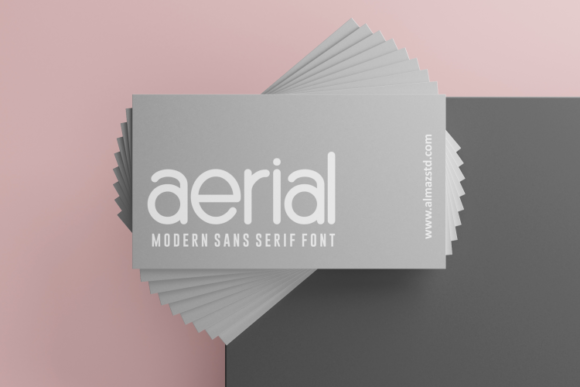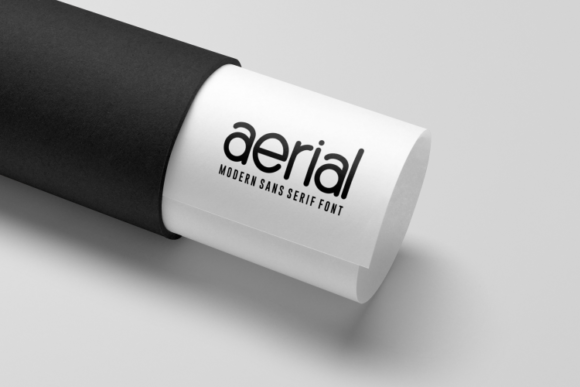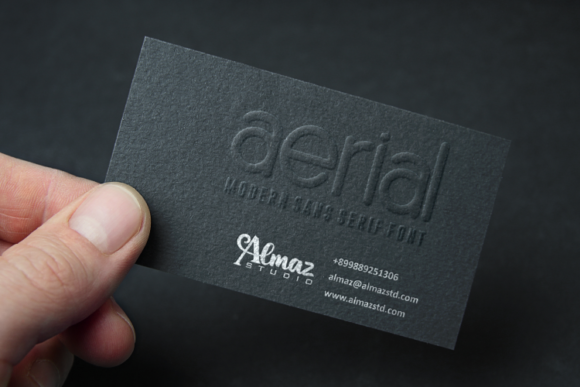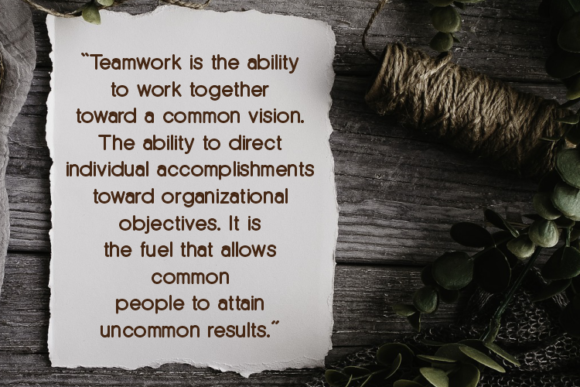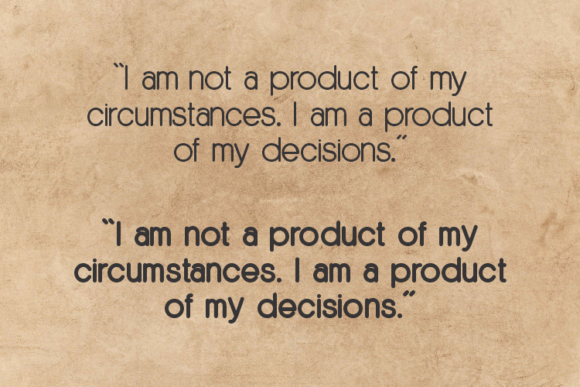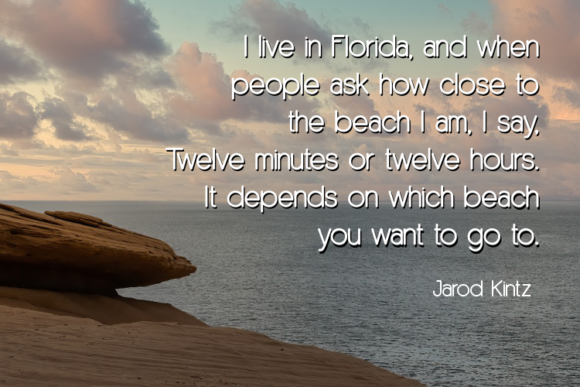
Aerial Font: Elevate Your Designs with a Clean and Modern Sans Serif
In the world of typography, a font can make or break a design. A well-chosen font can elevate your creation, adding a touch of sophistication and professionalism. Aerial Font is a clean and modern sans serif font that is sure to become an incredible asset to your font library. Whether you’re a designer, crafter, or simply someone who appreciates beautiful typography, Aerial Font is a must-have.
What is Aerial Font?
Aerial Font is a sans serif font that exudes a sense of cleanliness and modernity. Its sleek lines and minimalist design make it perfect for a wide range of applications, from digital designs to print materials. Aerial Font is a versatile font that can be used for various purposes, including branding, advertising, packaging, and more.
Key Features of Aerial Font
Aerial Font boasts several key features that make it an attractive addition to any font library. Some of its notable features include:
• Clean and Modern Design: Aerial Font’s sleek and minimalist design makes it perfect for modern designs.
• High Legibility: The font’s clear and concise lines ensure high legibility, even at small sizes.
• Versatility: Aerial Font can be used for a wide range of applications, from digital designs to print materials.
• Easy to Read: The font’s simple and uncluttered design makes it easy to read, even for extended periods.
Benefits of Using Aerial Font
Aerial Font offers several benefits to designers and crafters. Some of the advantages of using Aerial Font include:
• Enhanced Visual Appeal: Aerial Font’s clean and modern design adds a touch of sophistication to any design.
• Improved Legibility: The font’s high legibility ensures that your message is conveyed clearly and effectively.
• Flexibility: Aerial Font can be used for a wide range of applications, making it a versatile addition to your font library.
• Time-Saving: With Aerial Font, you can create professional-looking designs quickly and easily.
Who Can Benefit from Aerial Font?
Aerial Font is a versatile font that can be used by a wide range of professionals and individuals. Some of the people who can benefit from Aerial Font include:
• Graphic Designers: Aerial Font is a great addition to any graphic designer’s font library, offering a clean and modern sans serif option.
• Digital Designers: The font’s clean lines and minimalist design make it perfect for digital designs, including websites and mobile apps.
• Crafters: Aerial Font can be used for a variety of crafting projects, including card making, scrapbooking, and more.
• Marketers: The font’s high legibility and clean design make it perfect for marketing materials, including brochures, flyers, and more.
How to Use Aerial Font
Using Aerial Font is easy. Here are a few tips to get you started:
• Pair it with Other Fonts: Aerial Font can be paired with other fonts to create a unique and visually appealing design.
• Experiment with Different Sizes: The font’s high legibility ensures that it looks great at a variety of sizes.
• Use it for Headings and Body Text: Aerial Font is perfect for both headings and body text, making it a versatile addition to your font library.
Aerial Font is a clean and modern sans serif font that is sure to elevate your designs. Its sleek lines, high legibility, and versatility make it a great addition to any font library. Whether you’re a designer, crafter, or simply someone who appreciates beautiful typography, Aerial Font is a must-have. With its wide range of applications and ease of use, Aerial Font is sure to become a favorite among designers and crafters alike.